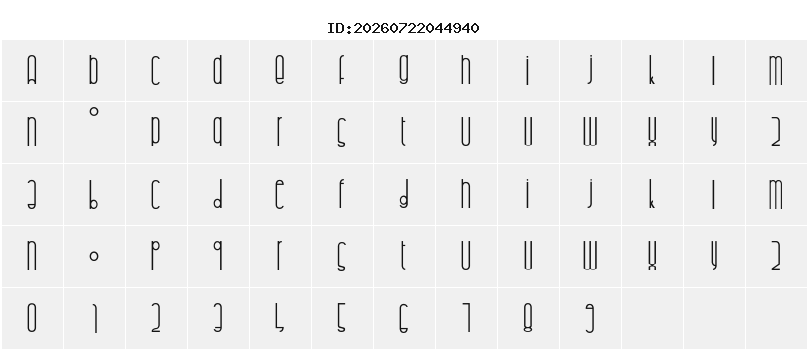
highalto Preview
• Font Name: highalto
• Font ID: highalto:Version 1.001
• Full Font Name: highalto
• Version: Version 2.001 February 28, 2013
• PostScript Name: highalto
• Character Count: 135
• Copyright: Copyright (c) 2013 by Paolo Cadeddu 2013 - Paulfalco
About highalto.ttf
highalto.ttf is a modern, elegant sans-serif font designed for ultimate readability and visual harmony. Perfect for branding, headlines, web design, and print materials.